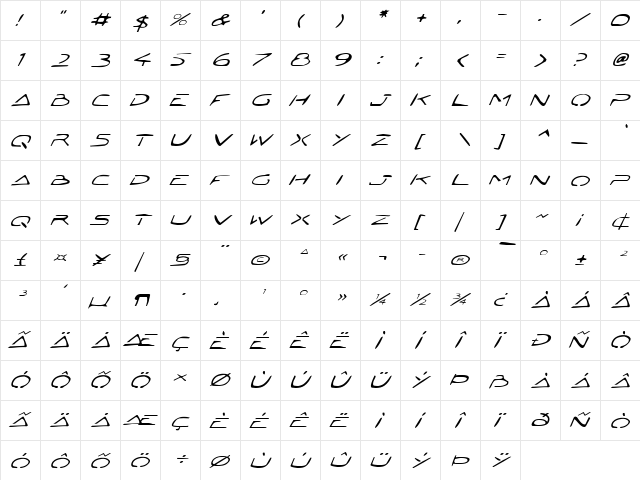
Jetta Tech Italic Italic
Design Context for Jetta Tech Italic Typeface
Jetta Tech Italic channels digital-age aesthetics through its sharp, structured letterforms — ideal for brands that want to signal innovation. The slanted form adds forward momentum and visual energy.
Pro Tip: Use Jetta Tech Italic in combination with a neutral sans for body text. Let it define the brand voice in headlines while keeping reading comfortable elsewhere.